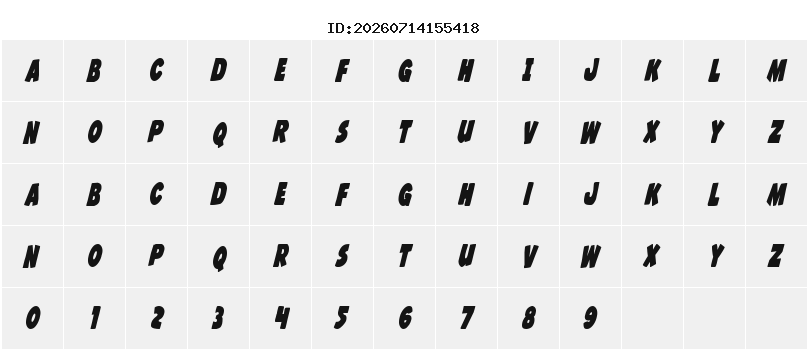
Jack's Candlestick Bold Extra-condensed Preview
• Font Name: Jack's Candlestick Bold Extra-condensed
• Font Style: Bold Extra-condensed
• Full Font Name: Jack's Candlestick Bold Extra-condensed
About Jack's Candlestick Bold Extra-condensed.ttf
Jack's Candlestick Bold Extra-condensed.ttf is a modern, elegant sans-serif font designed for ultimate readability and visual harmony. Perfect for branding, headlines, web design, and print materials.